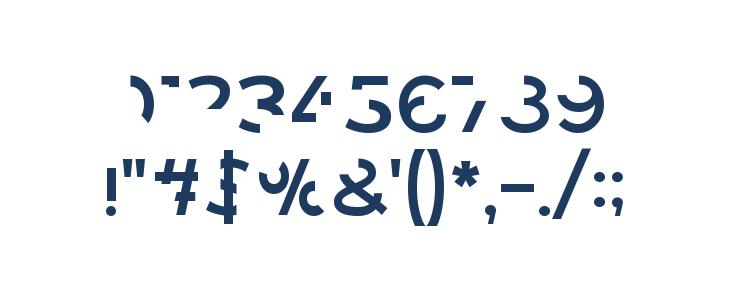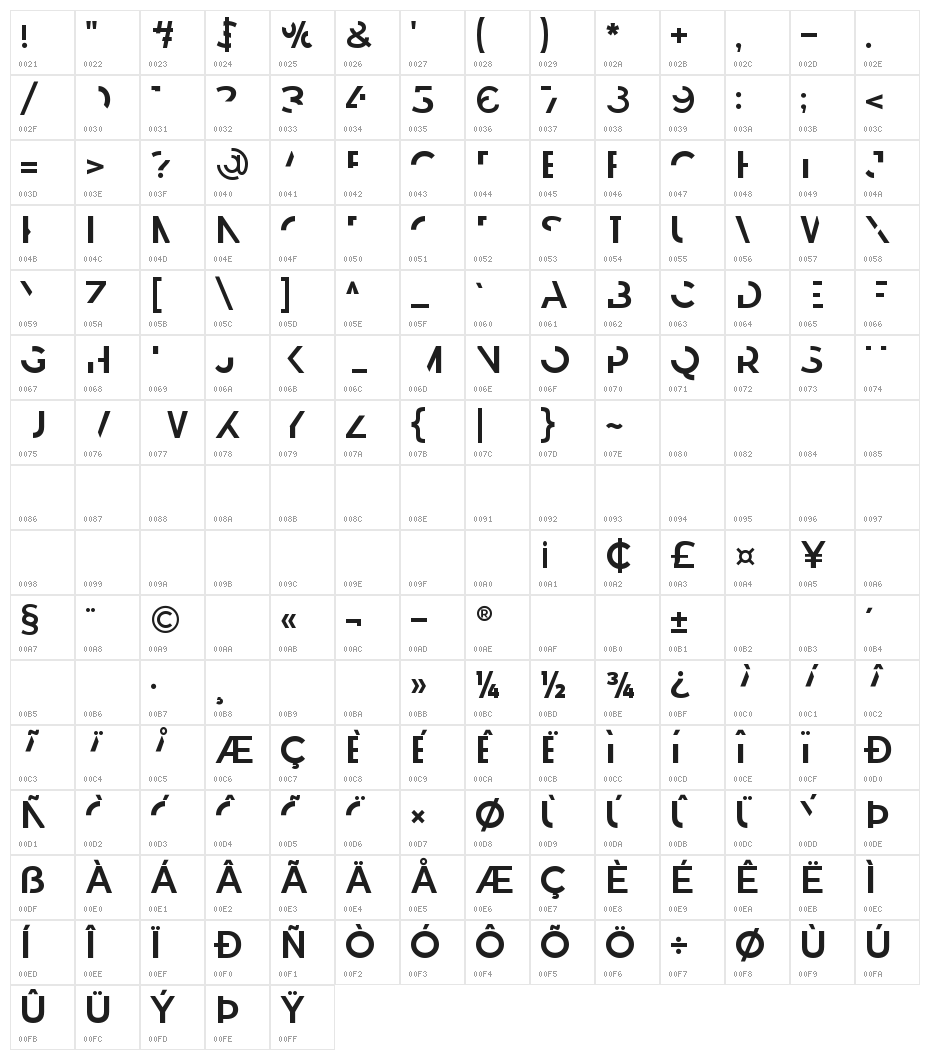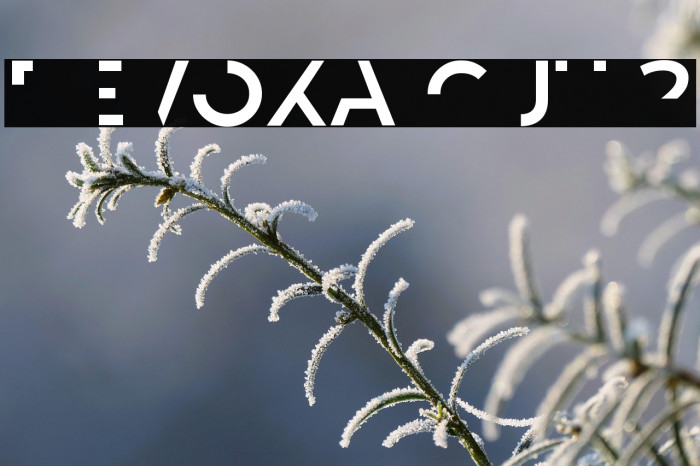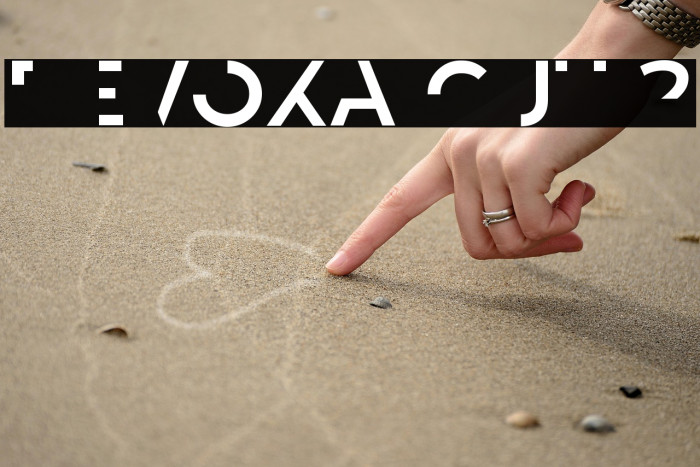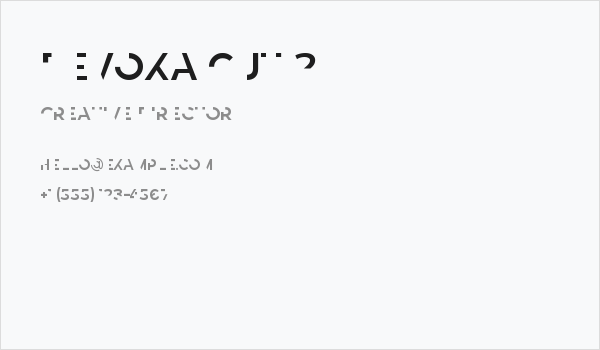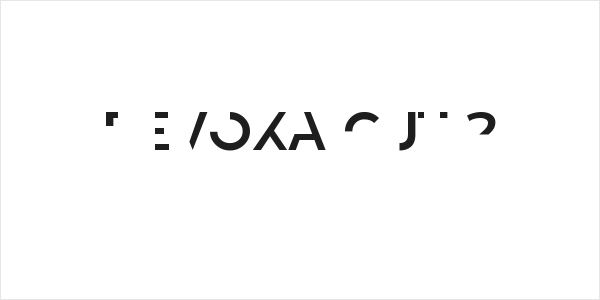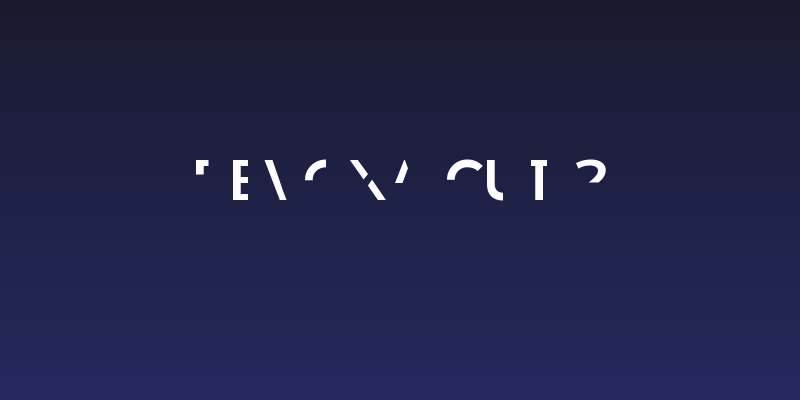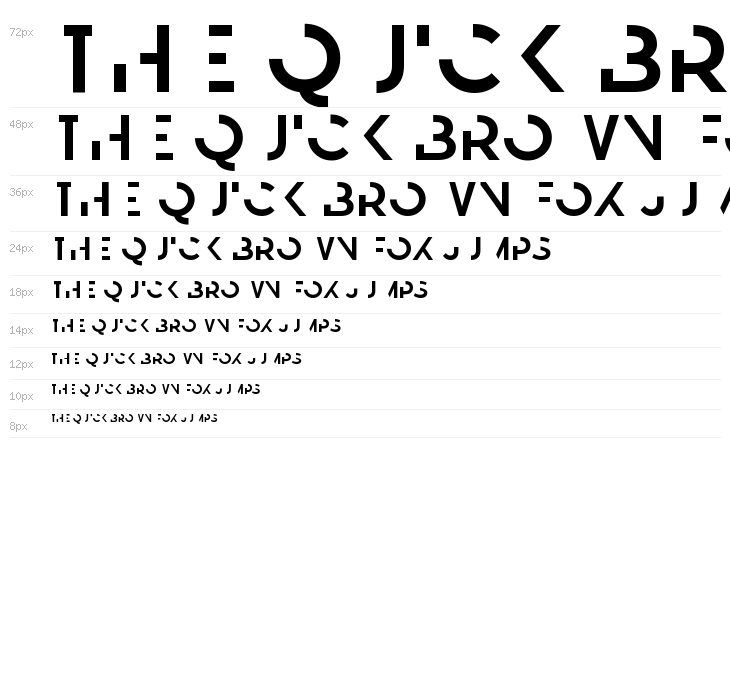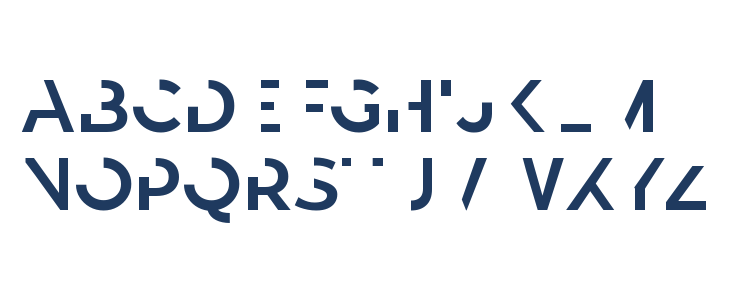
Revoxa Cut 2 Font
Revoxa Cut 2 Description
This font features a bold and striking design with a modern, geometric aesthetic. Each character is crafted with precision, incorporating sharp angles and clean lines that create a sense of movement and energy. The font's unique cut-out style adds a layer of complexity and intrigue, making it stand out in any design. The uppercase and lowercase letters maintain a consistent style, while the numerals and special characters complement the overall look. This font is ideal for projects that require a contemporary and edgy feel, such as branding, advertising, and digital media.
| Proposed Projects | Ideal for branding, advertising, digital media, and modern design projects. |